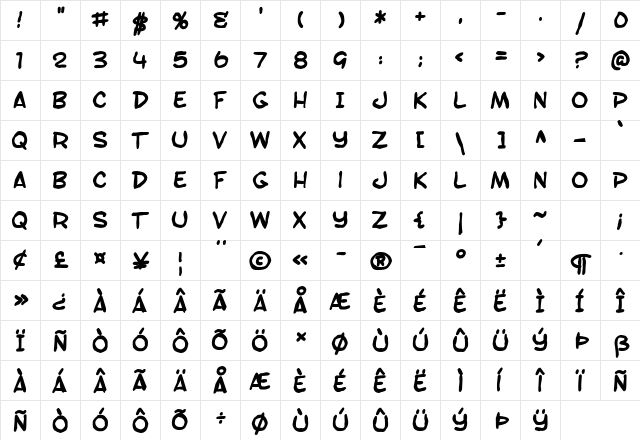
SF Toontime Blotch Bold Free Font
SF Toontime Blotch Bold
Designer: ShyFonts Type Foundry
Design Context for SF Toontime Blotch
SF Toontime Blotch is a composed and adaptable typeface that performs quietly and consistently across a wide range of design contexts. Its bold stroke weight gives it real presence on the page.